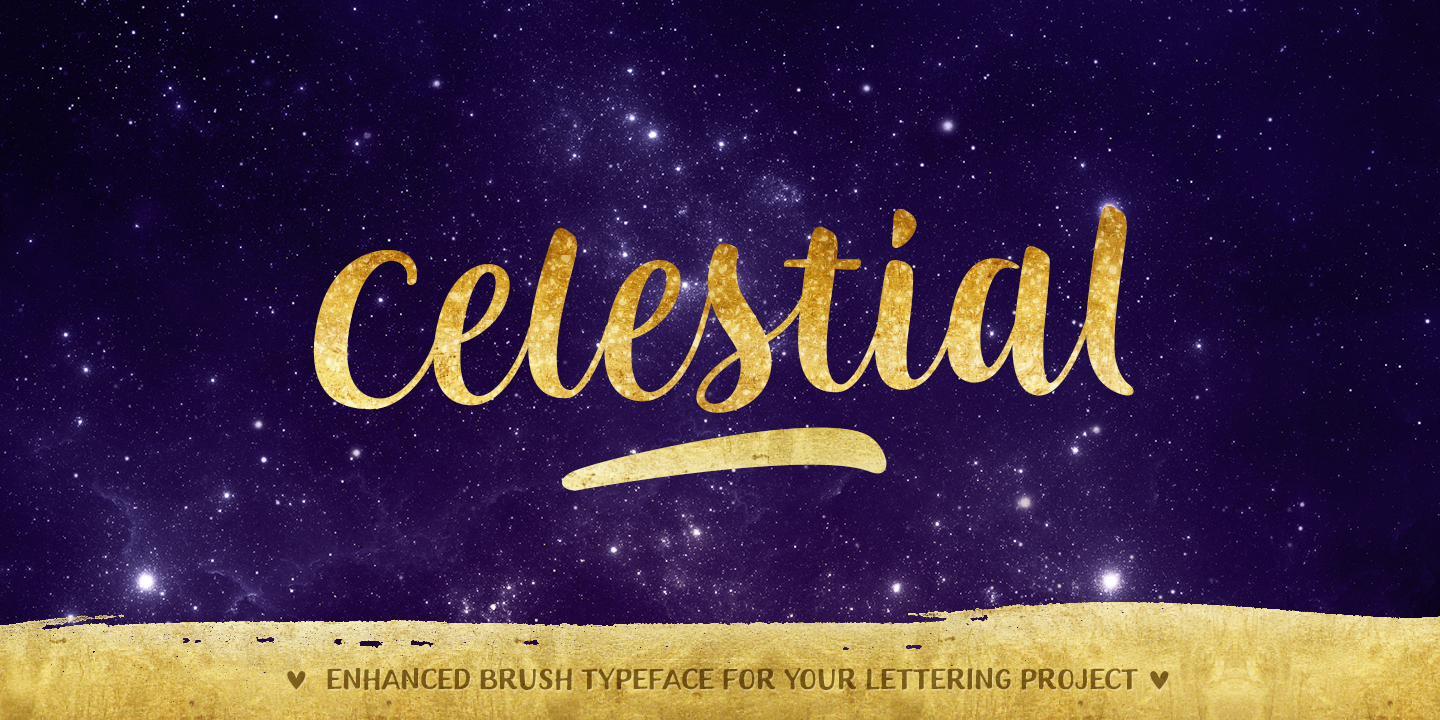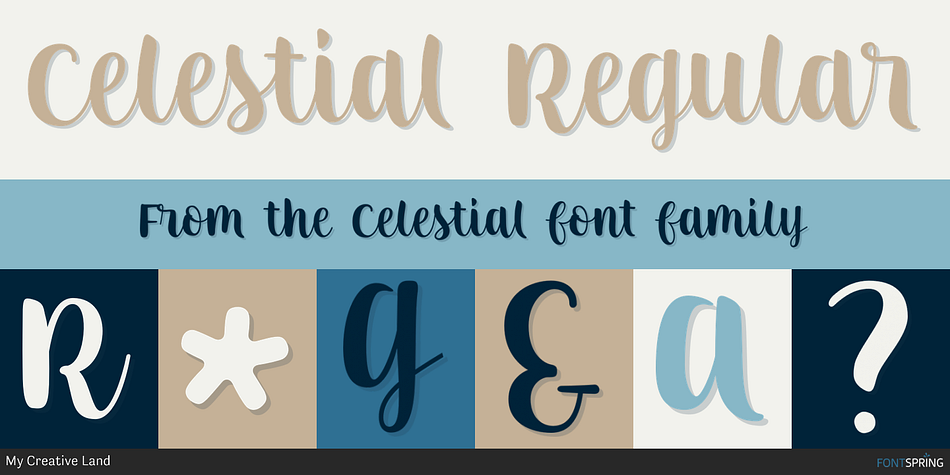
Celestial Regular
Celestial is a brush script font published by My Creative Land.
Have you ever struggled while creating a quote with all ascenders/descenders getting on the way?
Have you ever struggled while creating a quote with all ascenders/descenders getting on the way? When you can’t find a perfect placement for a word because the letters on the upper line crossing the ones on the lower one? Well, I have :) If you want to reduce this struggle to a minimum, the Celestial is for you. Full of open type features and alternates it won’t stand on your way to get the job done ;)